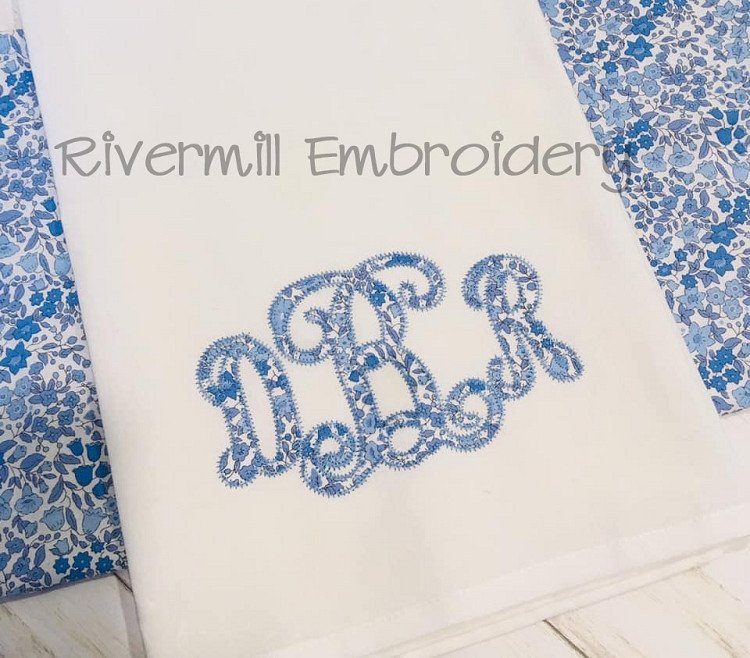
4x4 Size - Intertwined Monogram Zig Zag Applique Machine Embroidery Alphabet Font
This set comes with 4x4 sized center letters and side letters (each letter is shown in the second and third photo).  The center letters are about 3.8" tall and the side letters are smaller to fit into the swirls as shown in the photo.   Each individual letter will fit into a 4x4 hoop but you will need at least a 5x7 hoop to do a 3 letter monogram in one hooping.